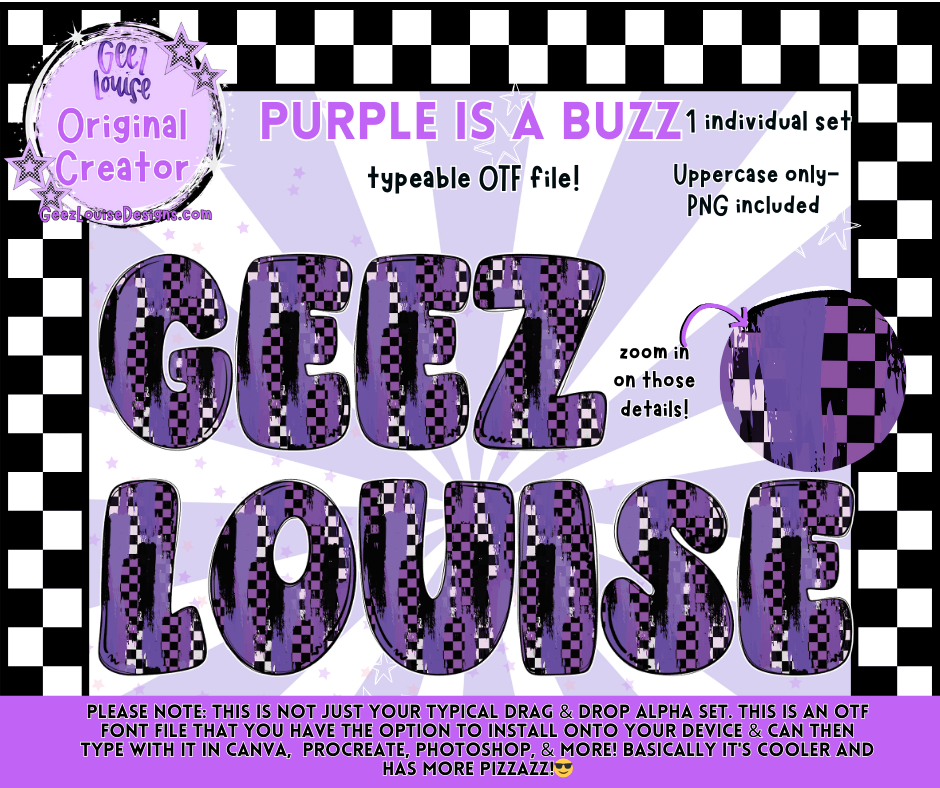
Purple Is A Buzz Faux Embroidery Alpha – OTF Font + PNG Letters
Add a bold pop of purple to your designs with the Purple Is A Buzz Faux Embroidery Alpha. This typeable OTF font combines a vibrant purple checkerboard texture with faux embroidery stitching, giving your projects that perfect mix of edge and detail.